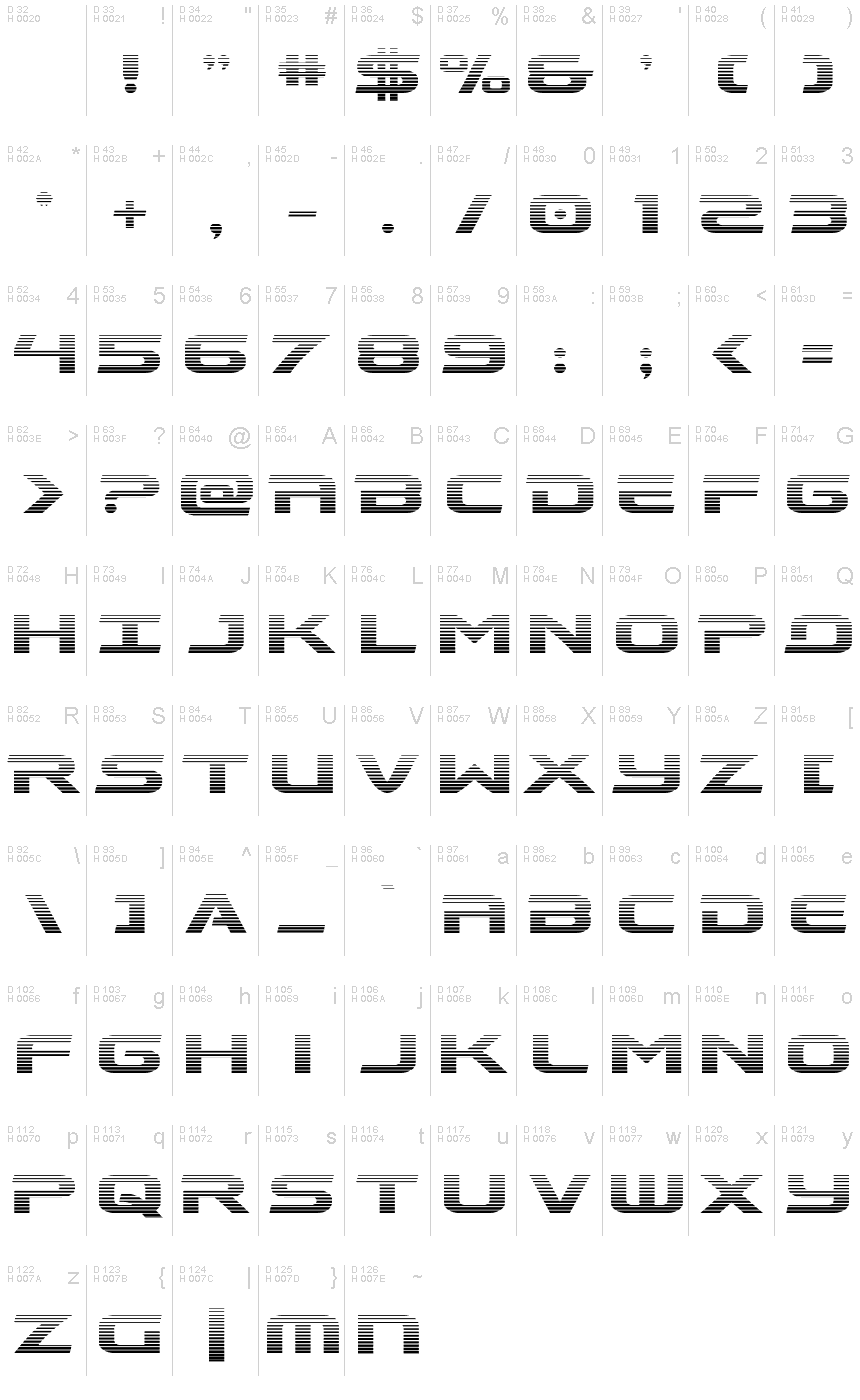
Drius Straight Gradient is a bold and futuristic display font from Iconian Fonts. With its extra-expanded width and gradient style, it adds a touch of modernity to any design project. Perfect for branding and logo creations that aim to stand out, this font effortlessly showcases a sense of innovation and forward-thinking.
It is also well-suited for website headers, posters, and advertisements that require attention-grabbing visuals. Give your designs a sleek and contemporary look with Drius Straight Gradient's unique blend of boldness and gradient aesthetics.